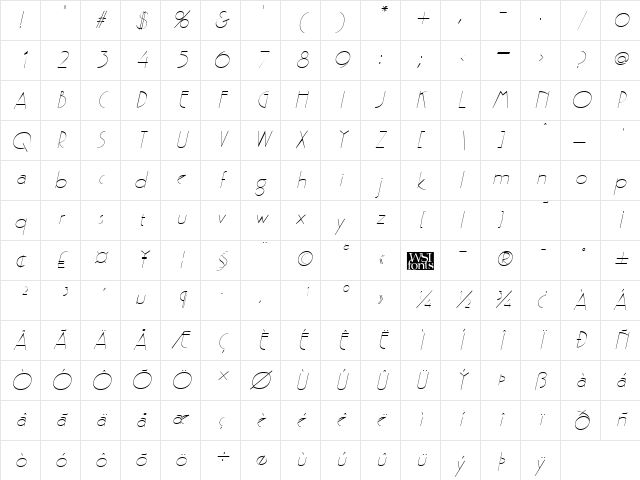
Complete Gatsby Italic glyph index. Displaying only characters natively supported by Gatsby Italic font.
Gatsby is a composed and adaptable typeface that performs quietly and consistently across a wide range of design contexts. The slanted form adds forward momentum and visual energy.